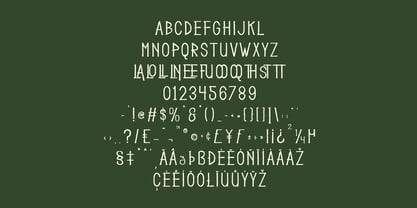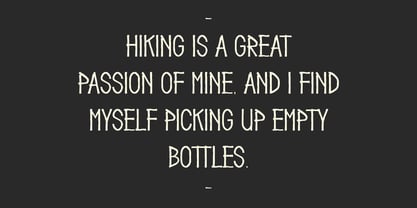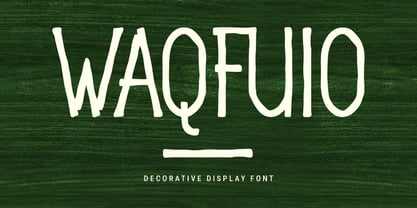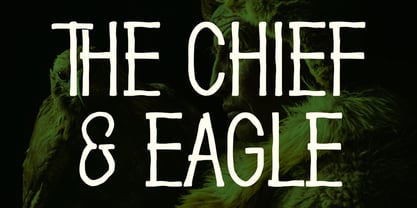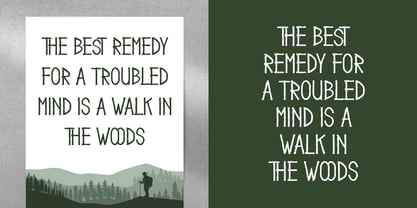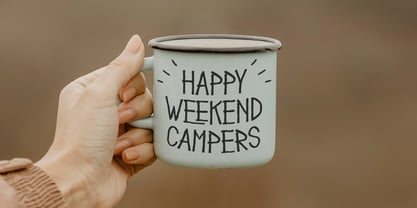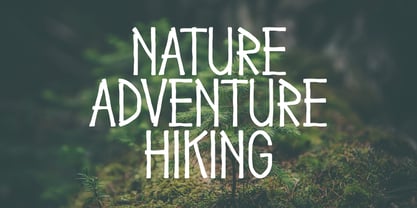
MC Waqfuio
by Maulana Creative
The MC Waqfuio Font Family was designed by Gilang Maulana and published by Maulana Creative. MC Waqfuio contains 1 styles. More about this family
Waqfuio is a decorative sans display font. With bold stroke, fun character with a bit of ligatures. To give you an extra creative work. Waqfuio font support multilingual more than 100+ language. This font is good for logo design, Social media, Movie Titles, Books Titles, a short text even a long text letter and good for your secondary text font with sans or serif. Make a stunning work with Waqfuio font.
Designers: Gilang Maulana
Foundry: Maulana Creative